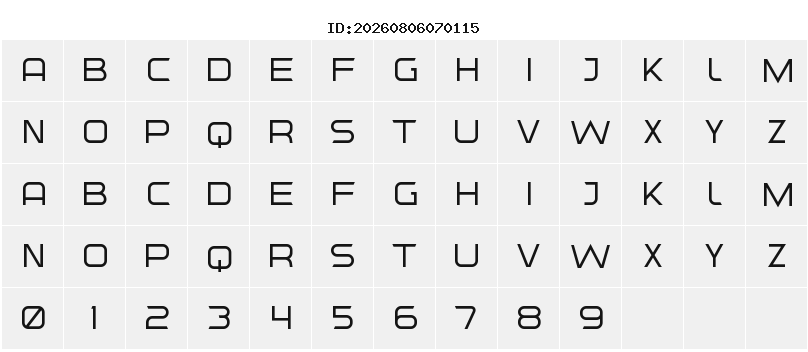
Outlier Rail Preview
• Font Name: Outlier Rail
• Full Font Name: Outlier Rail
About Outlier Rail.ttf
Outlier Rail.ttf is a modern, elegant sans-serif font designed for ultimate readability and visual harmony. Perfect for branding, headlines, web design, and print materials.